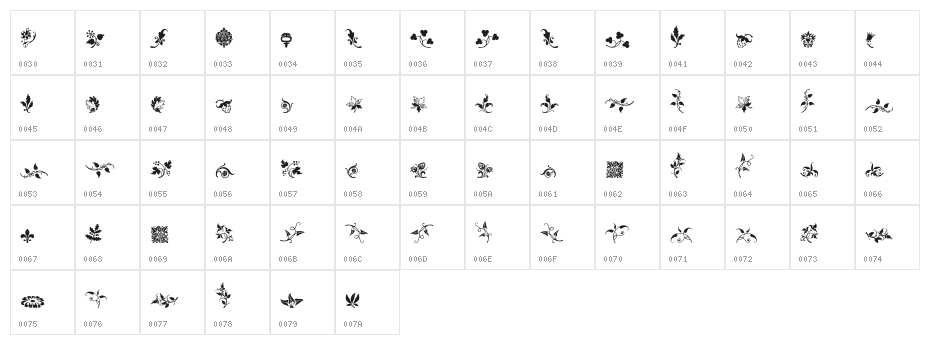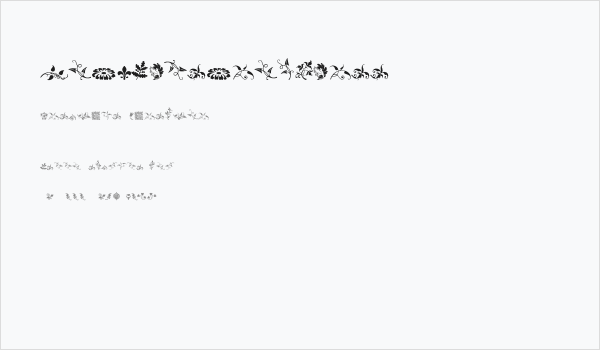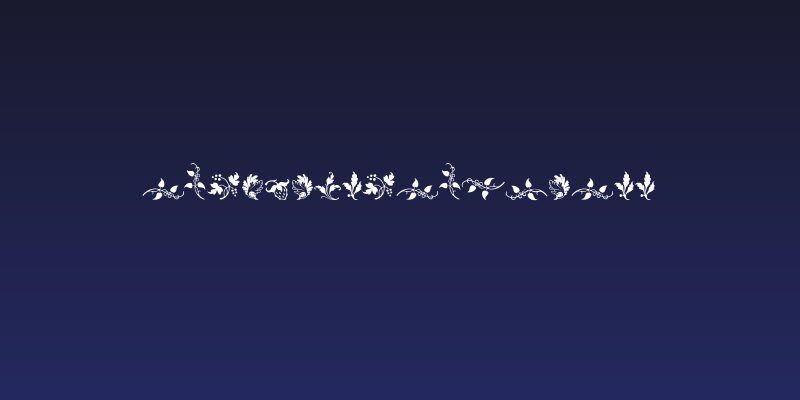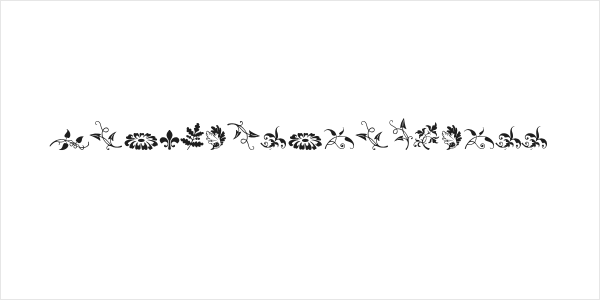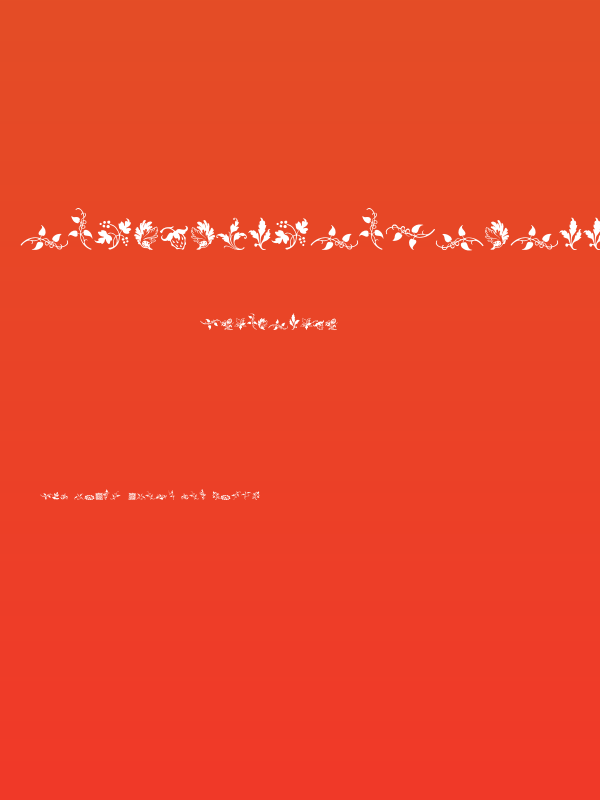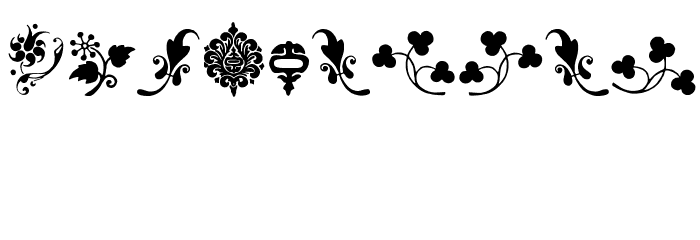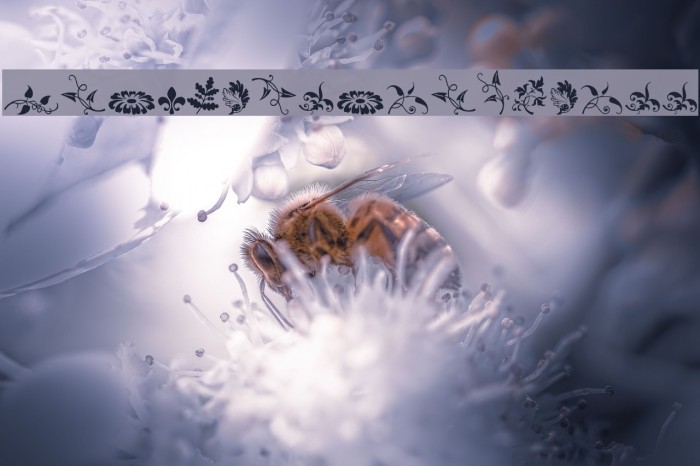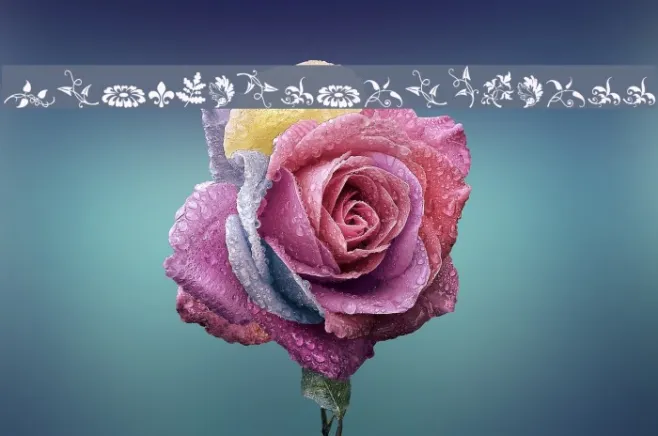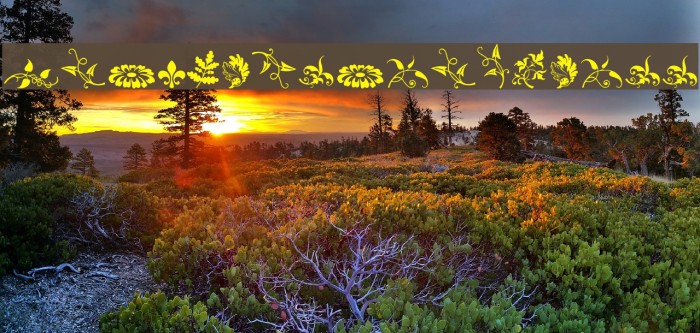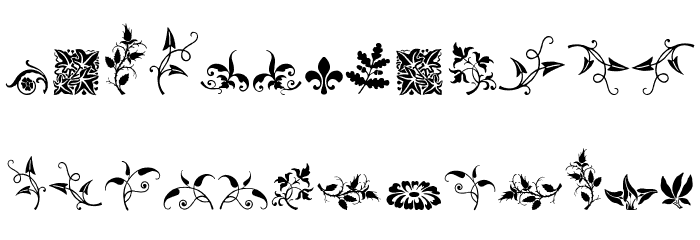
RoughFleuronsFree Font
RoughFleuronsFree Description
A decorative collection of ornate floral and botanical motifs, featuring intricate swirls, leaves, and symmetrical flourishes reminiscent of vintage or antique embellishments. The glyphs are highly stylized and detailed, with a hand-drawn, ornamental appearance.
| Overall Style | Vintage, Decorative, Ornamental |
| Use Case | Borders, Dividers, Decorative elements, Accents |
| Proposed Projects | Invitations, certificates, book covers, decorative borders, vintage-themed designs, ornamental dividers. |